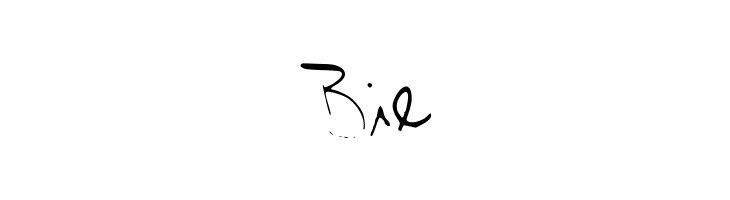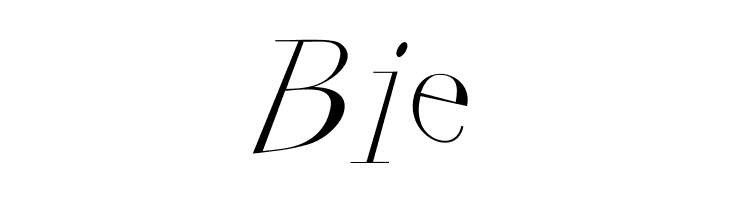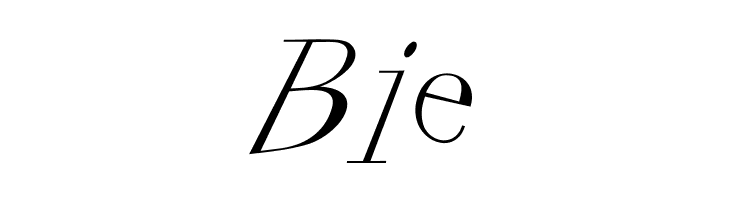
A bold, playful font with thick, rounded characters and a whimsical style.
A playful, rounded font with bold, smooth curves and even spacing.
A bold, playful font with rounded edges and a cohesive, friendly design.
A bold, cursive font with a dynamic and flowing handwritten style.
A bold, italicized font with a 3D effect and dotted texture.
A bold, decorative font with a 3D shadow effect and dotted texture.
A bold, geometric font with a three-dimensional shadow effect, ideal for impactful headlines.
A bold, outlined font with a strong, three-dimensional appearance.
A bold, angular font with a geometric, stencil-like appearance.
An elegant, flowing script font with ornate uppercase and cohesive lowercase letters.
A cursive script font with elegant, interconnected letters and a classic calligraphic style.
A classic, elegant script font with flowing, cursive letterforms.
A bold, elegant script font with fluid, interconnected strokes.
An elegant script font with flowing, cursive letters and graceful swashes.
A cursive, handwritten font with elegant, flowing strokes.
An elegant cursive font with flowing, intricate designs.
An elegant and sophisticated cursive script font with flowing curves and delicate flourishes.
A bold, brush script font with expressive, artistic strokes.
A bold, expressive handwritten font with fluid, dynamic strokes.
A modern, handwritten cursive font with smooth curves and dynamic slant.
A dynamic and expressive handwritten font with fluid strokes and a natural flow.
A bold, handwritten-style font with a playful and friendly appearance.
A whimsical and elegant script font with decorative swashes.
A playful, whimsical font with flowing cursive lowercase and tall, narrow uppercase letters.
A bold, handwritten script font with a lively and modern style.
A bold, flowing script font with elegant cursive letterforms.
A bold, blackletter-style font with sharp, angular strokes and a gothic flair.
A lively and dynamic script font with fluid, connected strokes.
A dynamic, fluid handwritten font with elegant cursive strokes.
A dynamic and expressive script font with fluid, cursive strokes.
A dynamic and fluid script font with elegant cursive letters.
A bold, jagged font with a dynamic, hand-drawn style.
A playful, handwritten font with tall, narrow characters and a casual style.
A bold, serif font with sharp angles and high contrast, perfect for impactful designs.
A sleek, modern font with geometric lines and uniform character width.